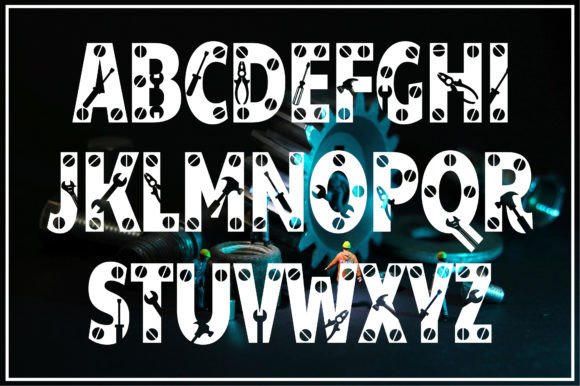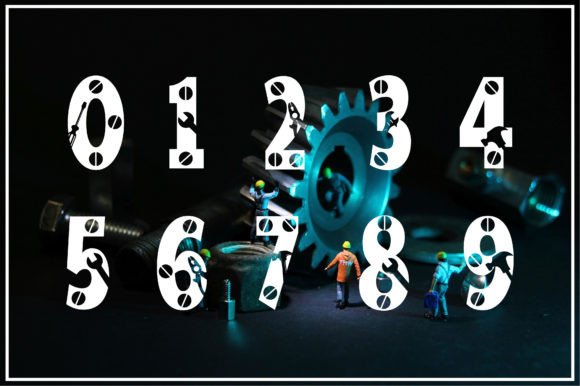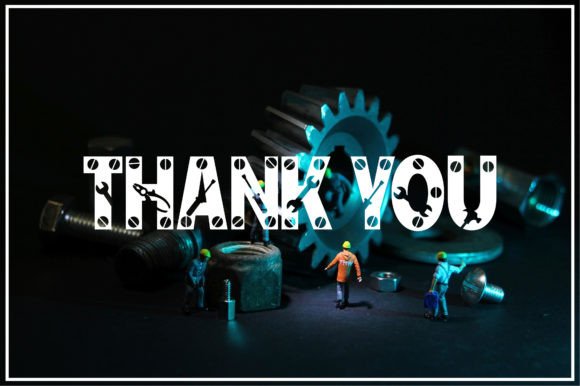
The Ultimate Display Font for Creators: Construction Font
I’ll never forget the design moment that led me to discover Construction Font. I was working on a project for a client who needed a bold, eye-catching font to brand their new construction company. I had spent hours scouring the internet for the perfect font, but nothing seemed quite right. That was until I stumbled upon Construction Font. Its raw strength and precision immediately caught my attention, and I knew I had found the perfect fit.
So, what makes Construction Font so special? Here are a few things I love:
- ✨ Bold and attention-grabbing: Construction Font is the perfect choice for designers who want to make a statement.
- ✅ Versatile: Whether you’re designing a logo, signage, or marketing materials, Construction Font is up to the task.
- 💯 High-quality design: The font is meticulously crafted with precise lines and curves, making it perfect for both digital and print applications.
Of course, no font is perfect, and Construction Font has a few quirks:
- 🤔 Limited use in body text: Due to its bold and angular design, Construction Font may not be the best choice for body text. It’s best used for headings and titles.
- ⚠️ Some glyphs may require manual adjustment: Depending on the design, some glyphs may require manual adjustment to ensure proper spacing and alignment.
Some of the OpenType features you can expect to find in Construction Font include:
- Stylistic alternates: Construction Font offers a range of stylistic alternates that can be used to add variation to your designs.
- Glyphs: The font includes a range of glyphs, including ligatures, fractions, and more.
Construction Font was designed with the goal of creating a font that emulates the raw strength and precision of construction elements. The designer, a creative and innovative typographer, drew inspiration from the world of construction and architecture to create a font that is both bold and beautiful.
| Font Name | Construction Font |
| Author | AvocadoSVG |
| What is Construction Font? | Construction Font is a display font designed to emulate the raw strength and precision of construction elements. |
| What can I use Construction Font for? | Construction Font is perfect for branding, signage, and impactful designs that stand tall in the visual landscape. |
| Is Construction Font easy to use? | Yes, Construction Font is easy to use and comes with a range of OpenType features and glyphs to enhance your designs. |